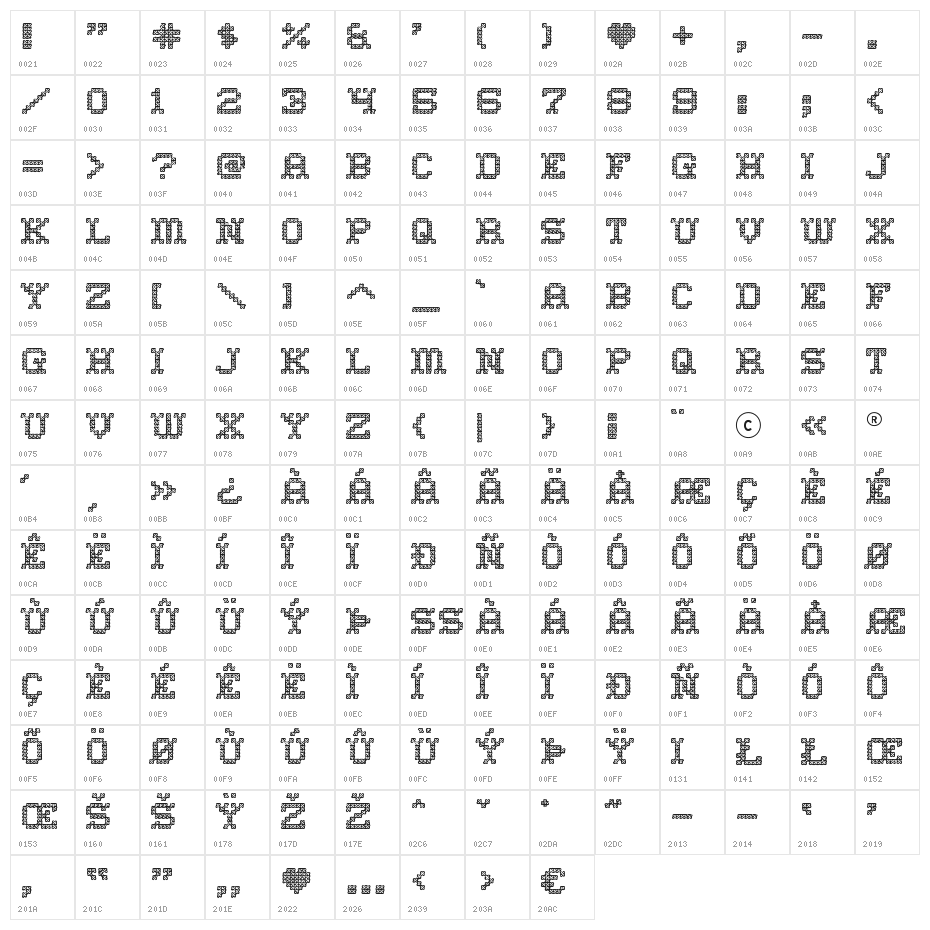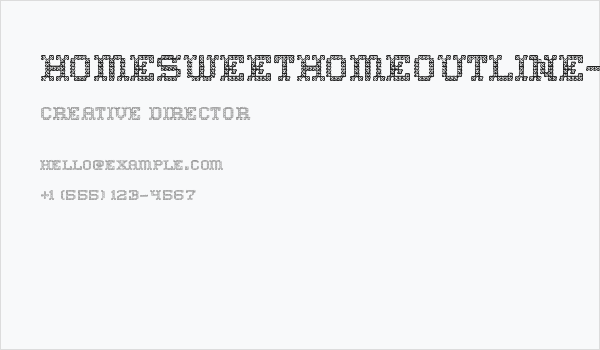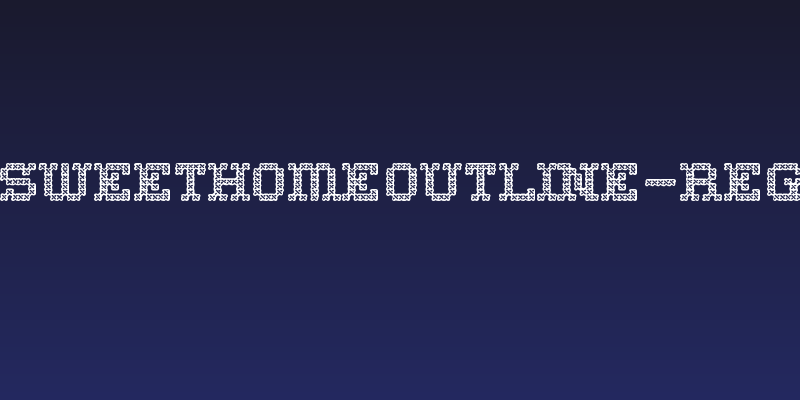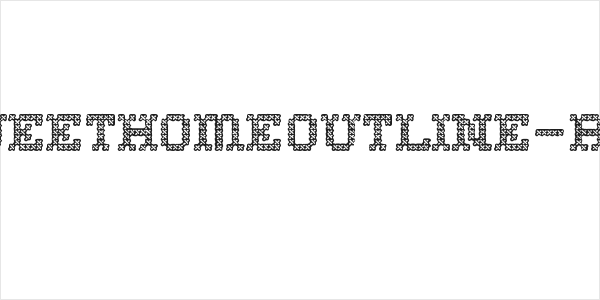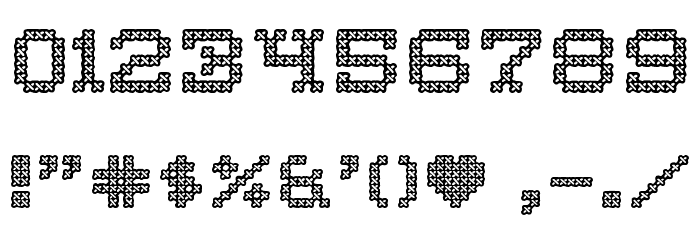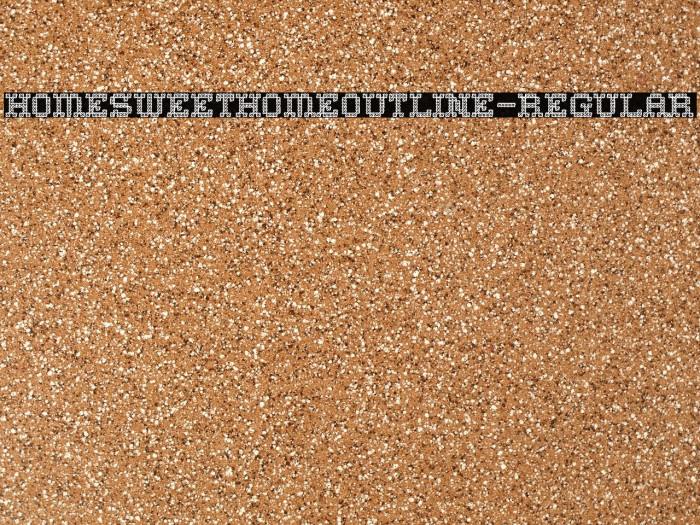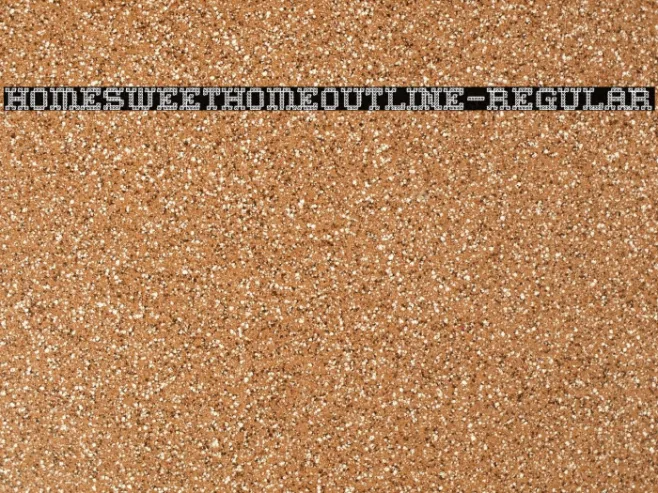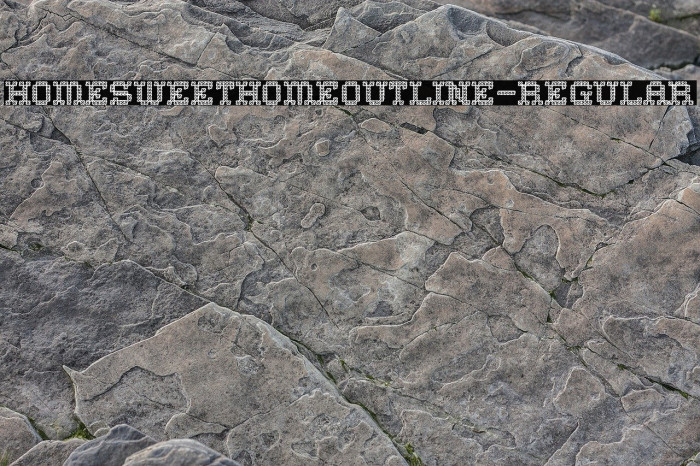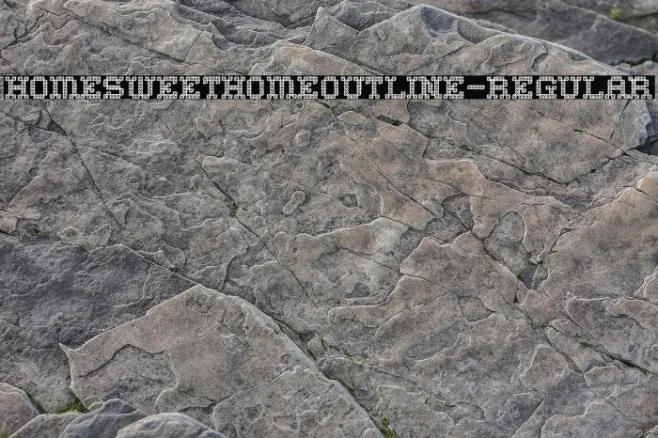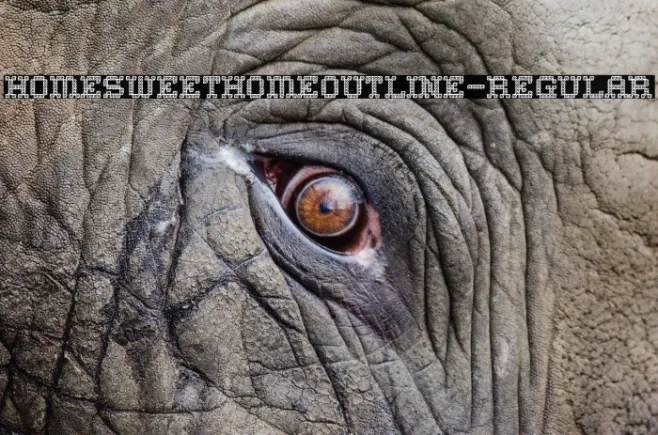
HomeSweetHomeOutline-Regular Font
HomeSweetHomeOutline-Regular Description
This font features a unique and decorative outline style, characterized by a pattern that resembles a woven or stitched texture. Each character is outlined with a consistent thickness, creating a bold and eye-catching appearance. The design is playful and intricate, making it suitable for creative and artistic projects. The uppercase and lowercase letters maintain a uniform style, while the numbers and special characters are crafted with the same attention to detail. This font stands out due to its distinctive pattern, making it ideal for projects that require a touch of whimsy and creativity.
| Proposed Projects | Ideal for greeting cards, posters, craft projects, and any design requiring a playful and artistic touch. |